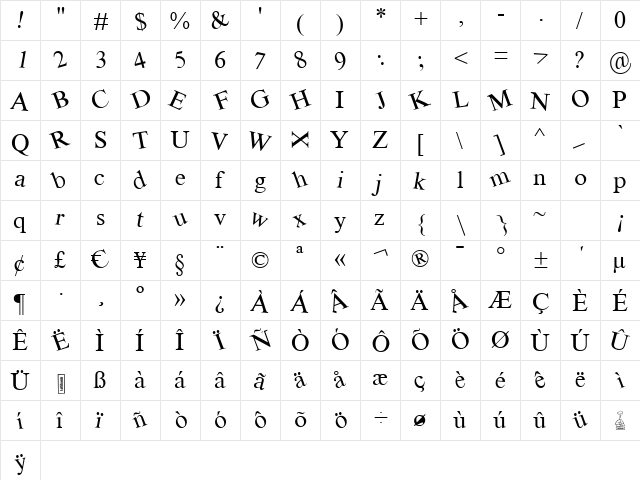
Timesturn Regular
Design Context for Timesturn Typeface
Timesturn offers clean, dependable letterforms without strong stylistic allegiance, making it a practical choice for designers who need flexibility.